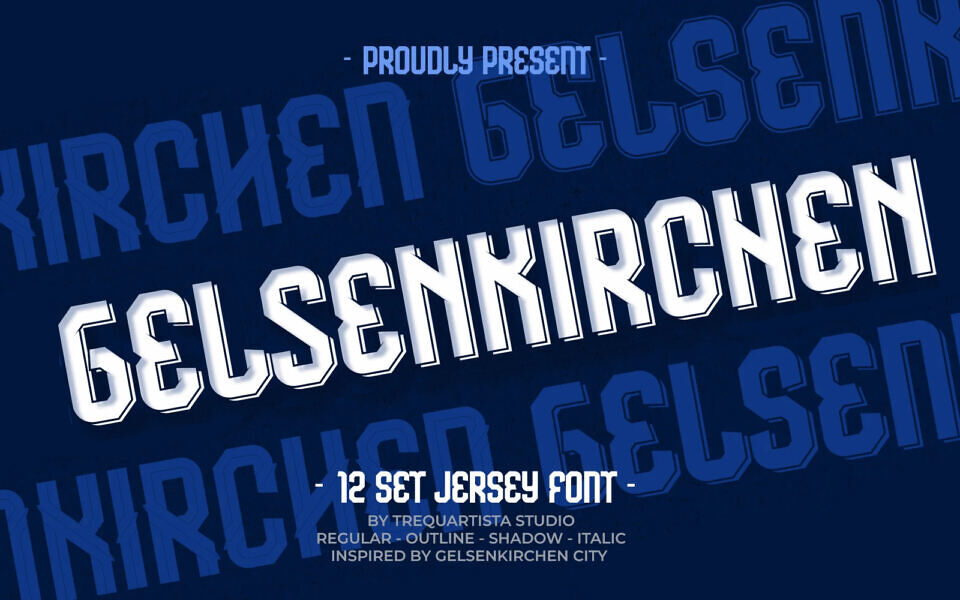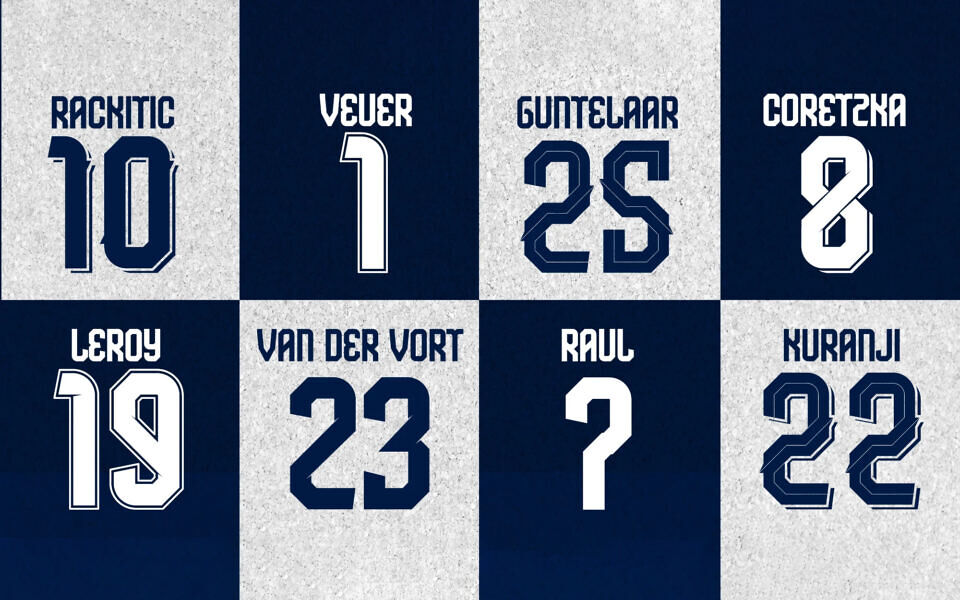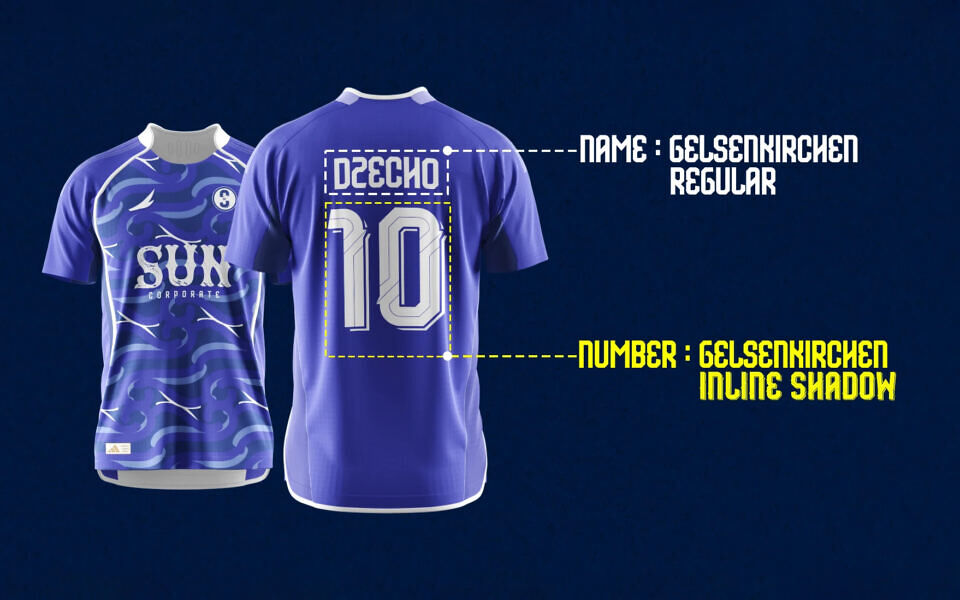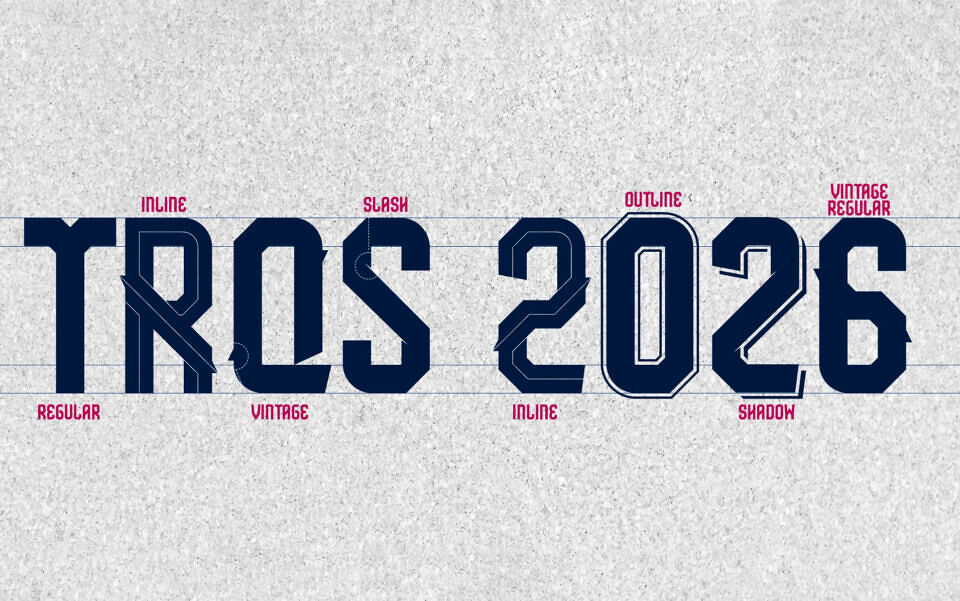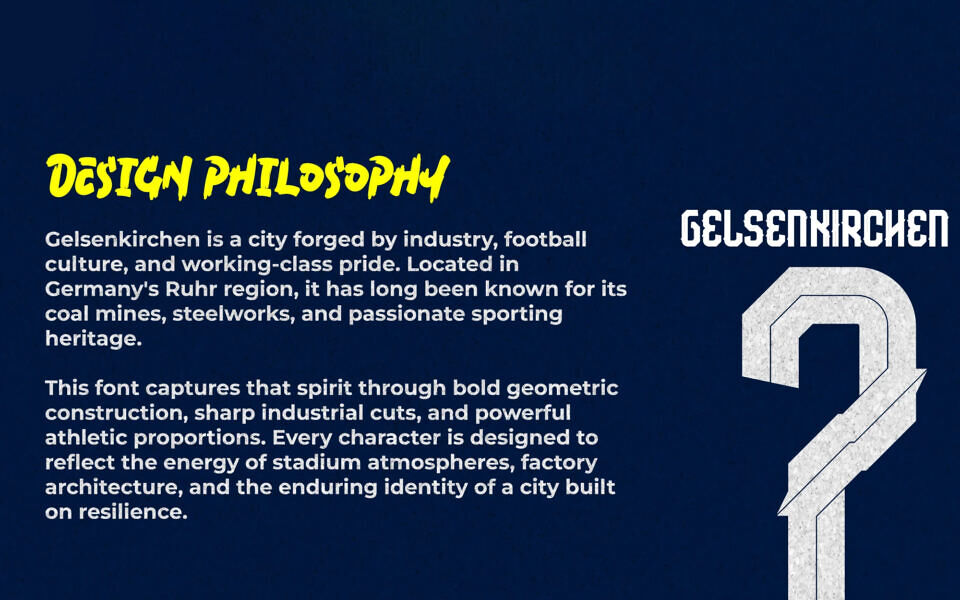
Gelsenkirchen Font Family
Gelsenkirchen is a bold jersey-inspired display typeface inspired by the industrial soul of the Ruhr region — the steel structures, stadium lights, passionate supporters, and the timeless culture of football. Each letterform is built with a strong athletic presence, combining geometric construction, sharp cuts, and powerful proportions to capture the energy of the game and the identity of a city shaped by industry.
Designed for sports identities and modern visual systems, Gelsenkirchen comes with multiple expressive styles — including Inline, Slash, and Vintage variations — giving designers the flexibility to create authentic jersey designs, team identities, and impactful sports visuals.